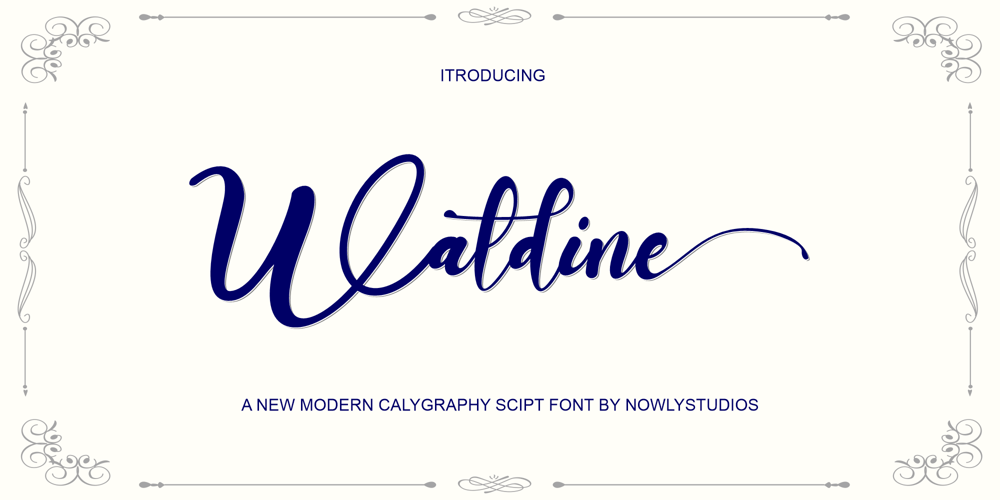
Waldine Script Font Family was designed by Irfan Nouli and published by Nowlystudios. Waldine Script contains 1 styles and family package options. Delivers an incredible display font. Use this display font to add that special retro touch to any design idea you can think of! Masterfully designed to become a true favorite, this font has the potential to bring each of your creative ideas to the highest level!